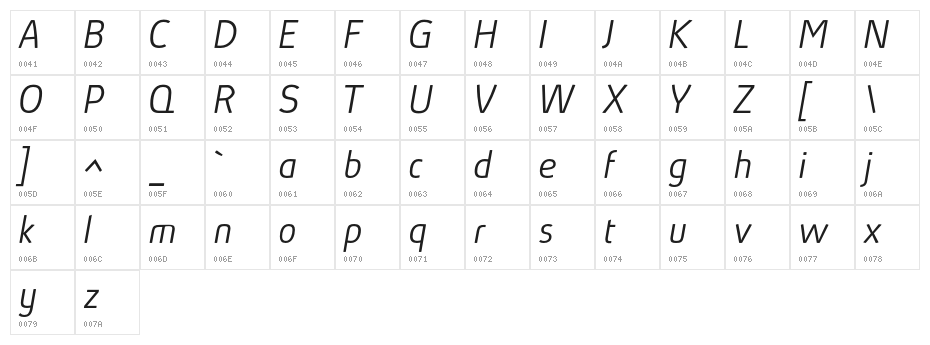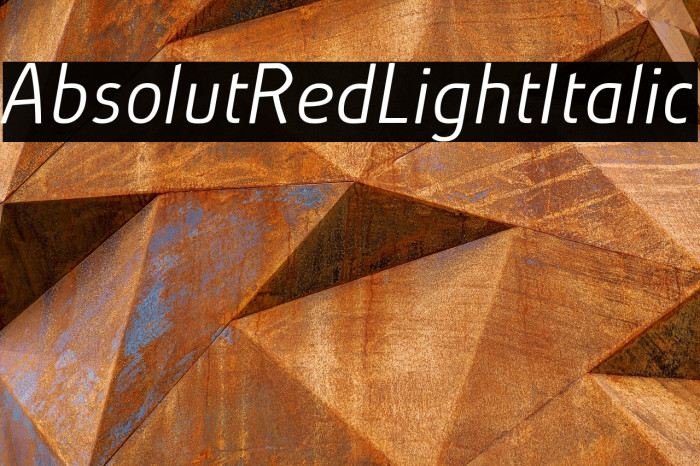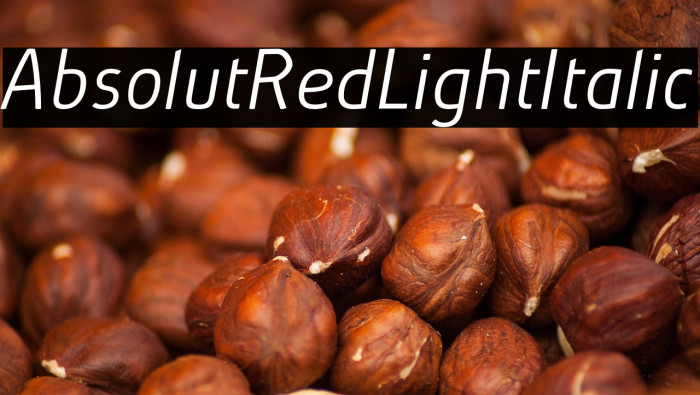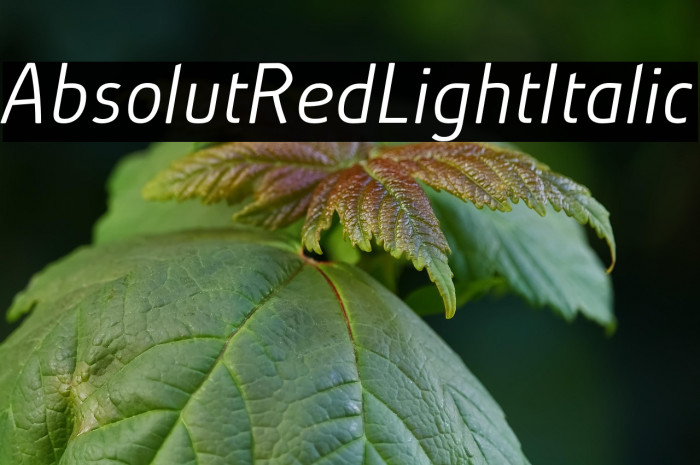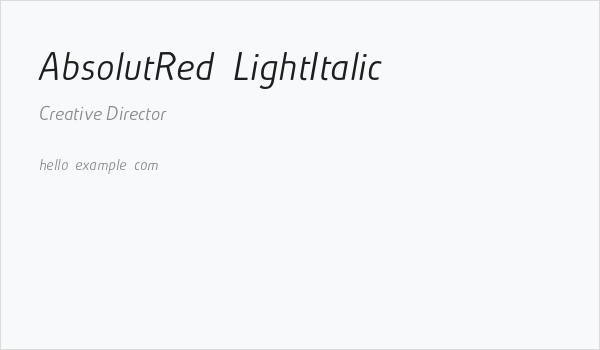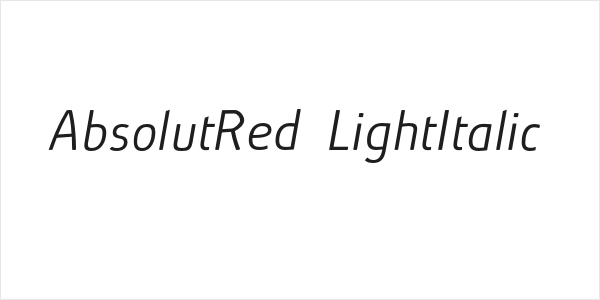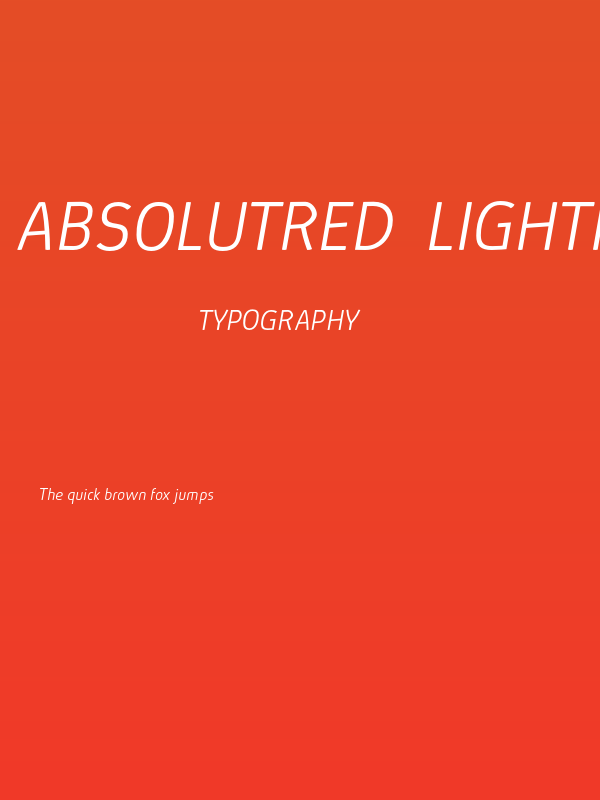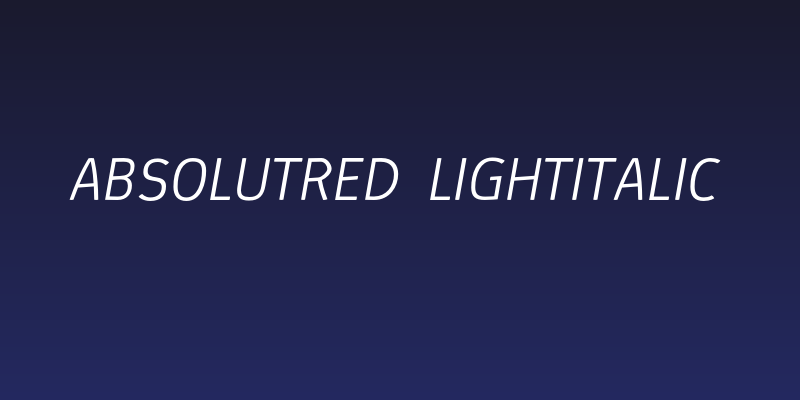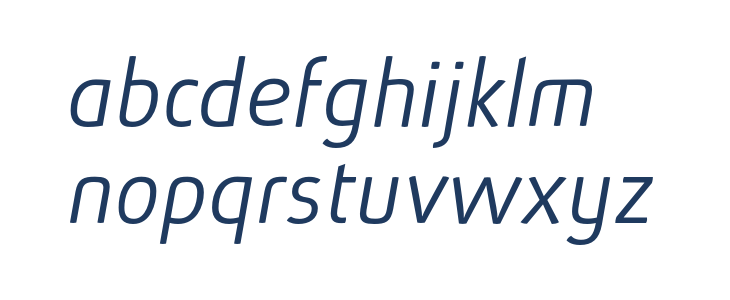
AbsolutRed-LightItalic Font
AbsolutRed-LightItalic Description
This font features a sleek and modern design with a light weight and italicized style. The characters are slightly condensed, giving it a streamlined appearance. The strokes are consistent and smooth, with a low contrast between thick and thin lines, which enhances readability. The font maintains a clean and professional look, suitable for various design applications. Its geometric shapes and subtle curves add a touch of elegance, making it versatile for both digital and print media.